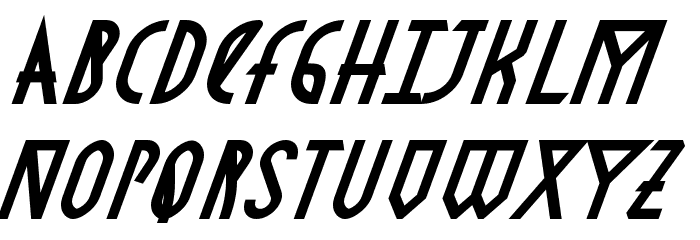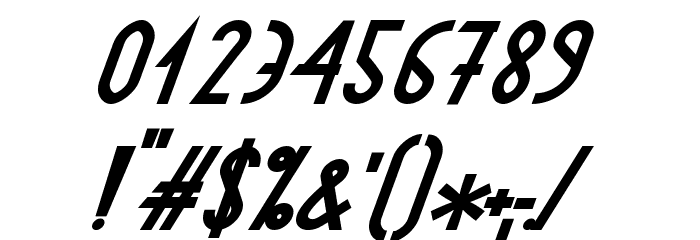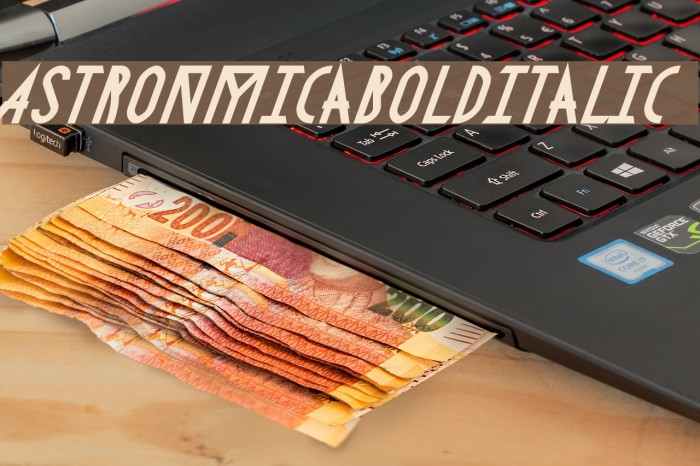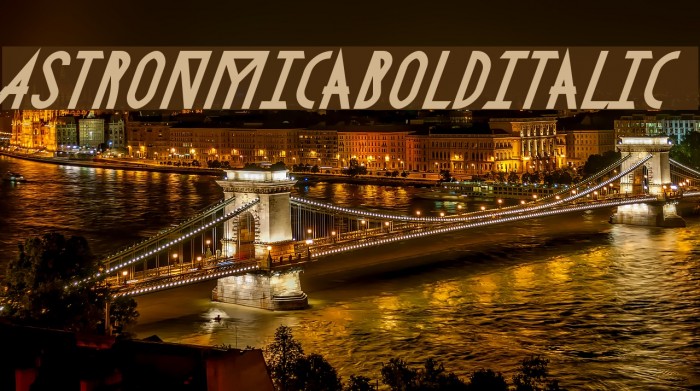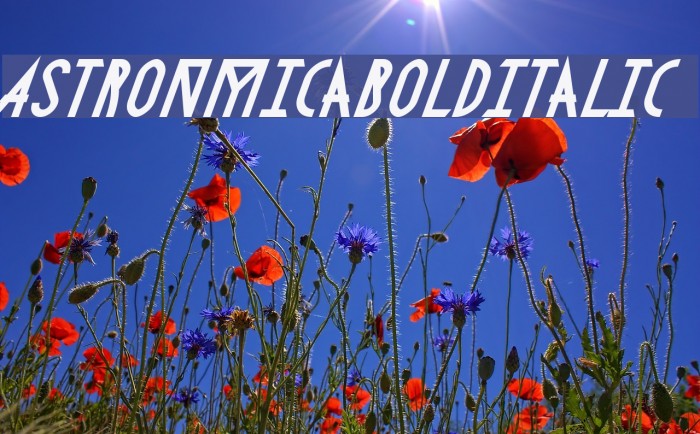
AstronmicaBoldItalic Font
This font features a bold and italicized style with a futuristic and dynamic appearance. The characters are sharply angled, giving them a sense of motion and energy. The uppercase letters are particularly striking, with elongated forms and unique geometric shapes. The lowercase letters maintain a consistent style, complementing the uppercase with their sleek and modern design. Numbers and special characters follow the same aesthetic, ensuring a cohesive look across all text. The font's bold weight and italic slant make it ideal for attention-grabbing headlines and impactful designs.
- Proposed Projects: Ideal for sci-fi themed projects, modern branding, posters, and digital media that require a bold and energetic typeface.